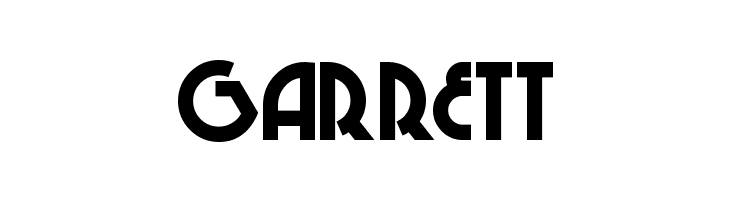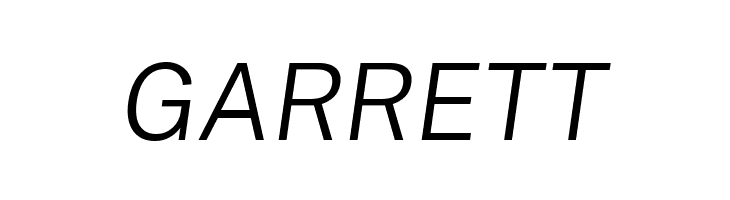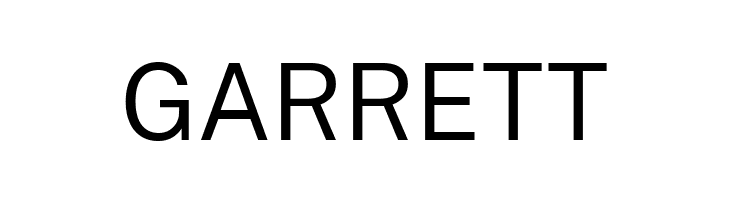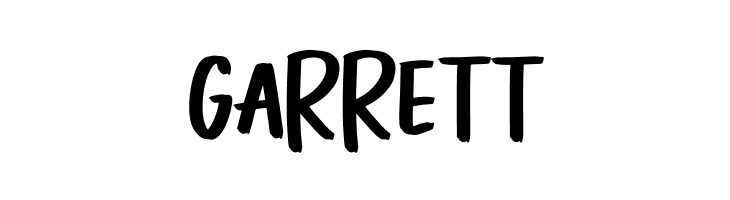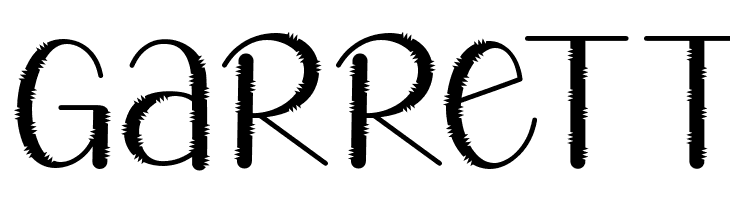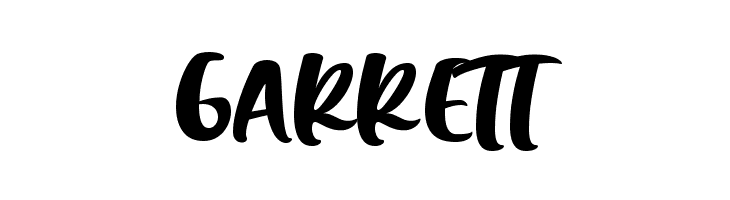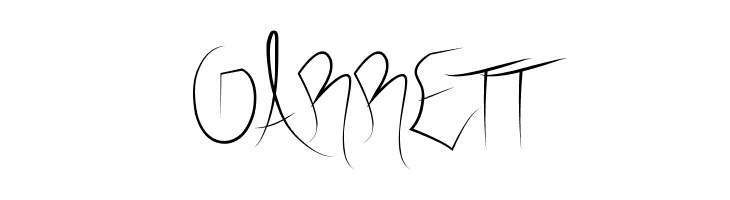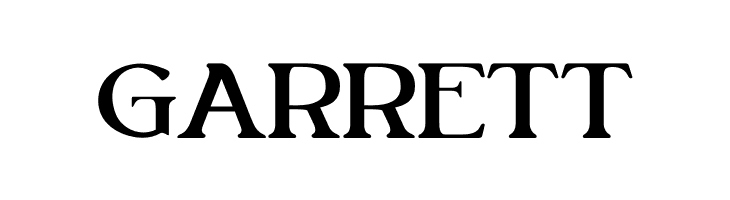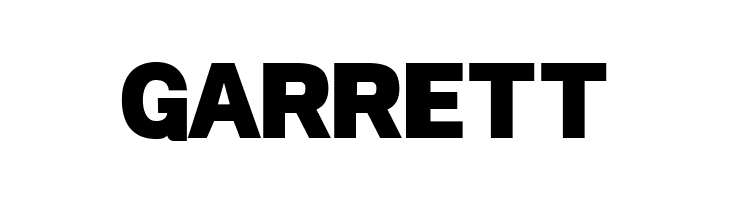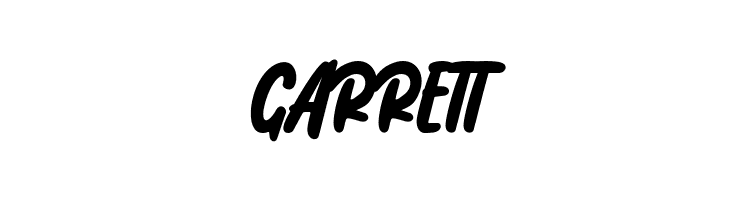
• Cheyenne Sans ExtraLight
A clean, modern sans-serif font with an extra light weight and high legibility.
• Cheyenne Sans ExtraLight Italic
A modern, extra light sans-serif font with an elegant italic style.
• Cheyenne Sans Italic
A modern sans-serif font with an italic slant, offering clarity and versatility.
• Cheyenne Sans Light
A modern, light sans-serif font with a clean and minimalistic design.
• Cheyenne Sans Light Italic
A modern, light, and italic sans-serif font with sleek lines and normal spacing.
• Cheyenne Sans Medium
A modern, clean sans-serif typeface with consistent stroke width and balanced spacing.
• Cheyenne Sans Medium Italic
A modern, medium-weight sans-serif font with an italic style and clean lines.
• Cheyenne Sans Regular
A clean, modern sans-serif font with uniform stroke width and excellent readability.
• Cheyenne Sans SemiBold
A modern, semi-bold sans-serif font with a clean and geometric design.
• Cheyenne Sans SemiBold Italic
A modern sans-serif font with semi-bold weight and italic style.
• Cheyenne Sans Thin
A modern, thin sans-serif font with a clean and minimalistic design.
• Cheyenne Sans Thin Italic
A sleek, modern sans-serif font with thin lines and an italic slant.
• Chi-TownNF
A bold, geometric font with Art Deco influences, ideal for modern and retro designs.
• Chia Seeds
A bold, playful handwritten font with thick strokes and a casual style.
• Chibiux
A playful, hand-drawn font with a whimsical and informal style.
• Chibiux
A playful handwritten font with a casual, friendly appearance.
• Chic Budapest
A sophisticated, cursive font with fluid, interconnected letters.
• Chic Cat
A playful, handwritten font with brush-like strokes and an artistic flair.
• Chic chak zubra
A hand-drawn, artistic font with uneven strokes and a dynamic, chaotic style.
• Chic decay
A decorative serif font with a distressed, artistic flair.
• Chica Mono